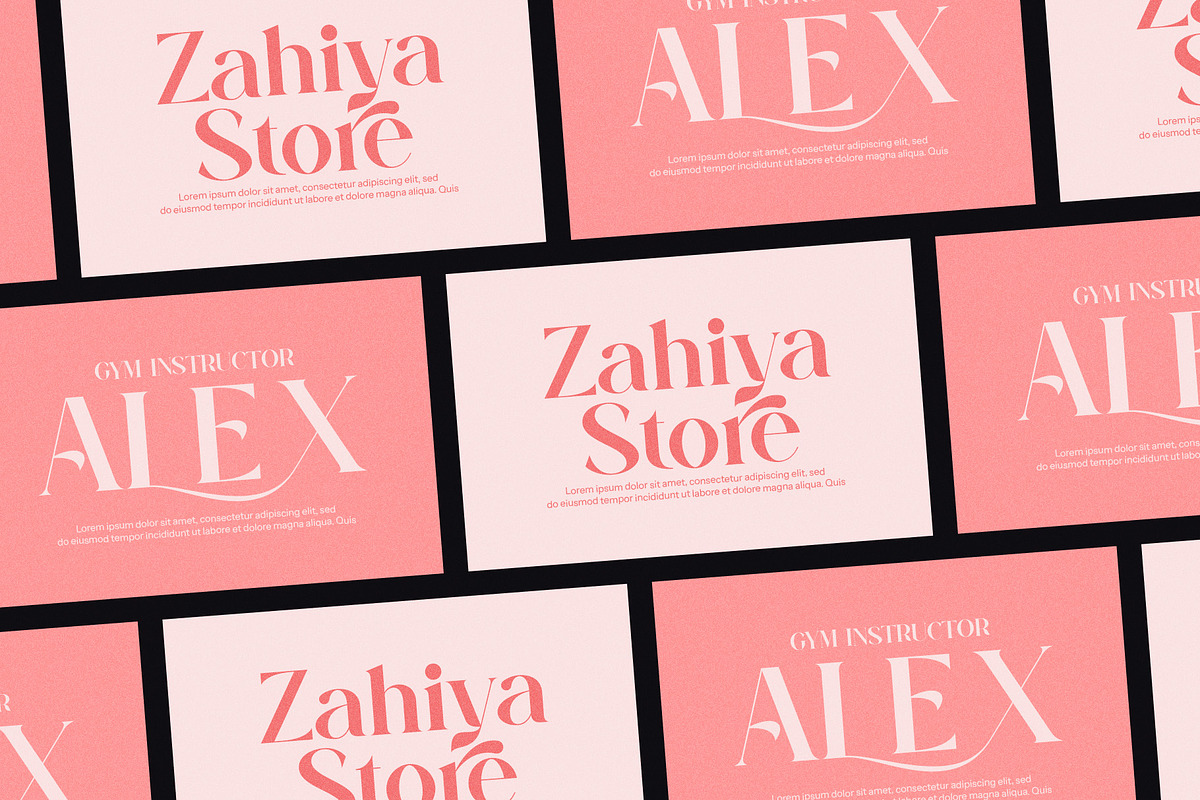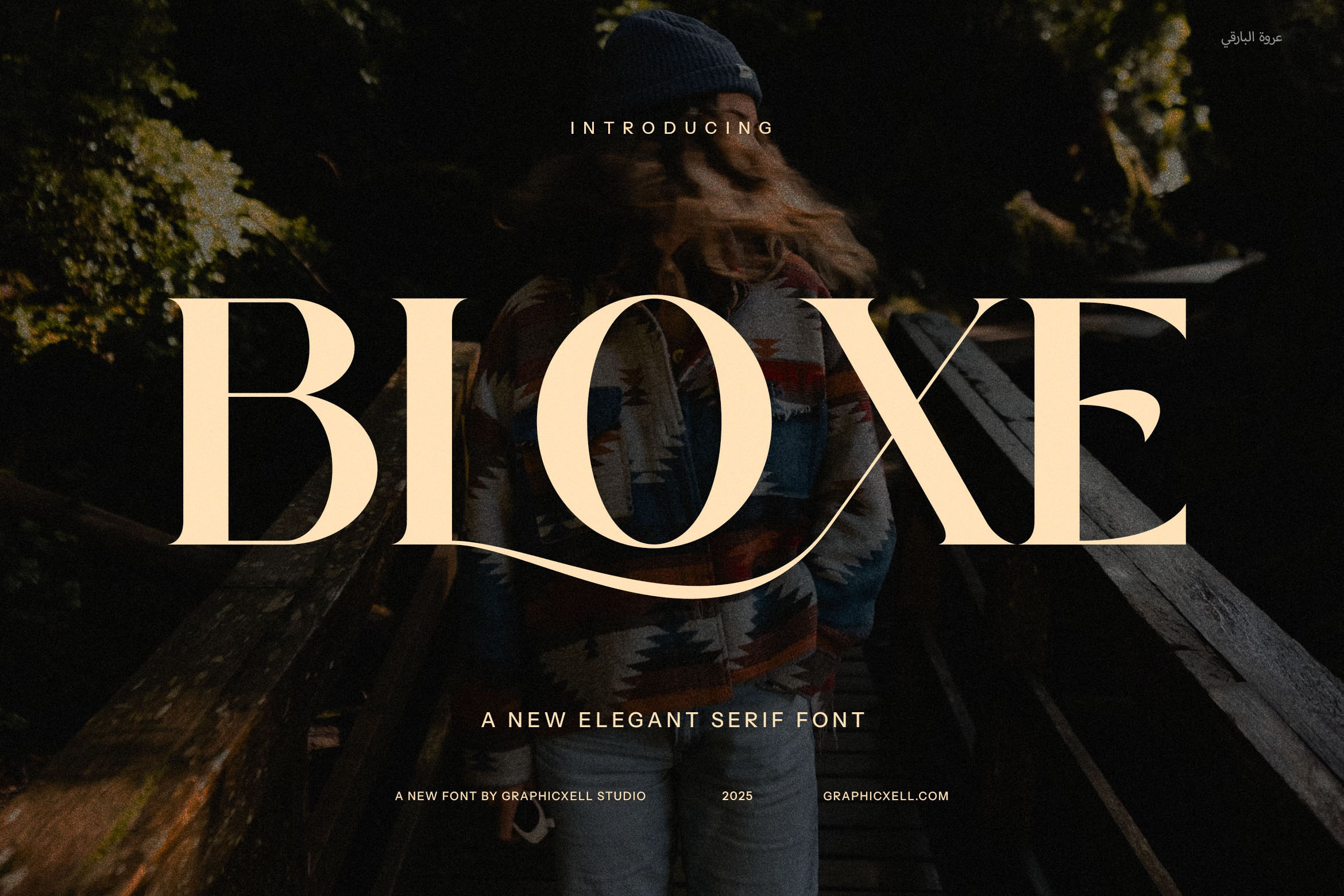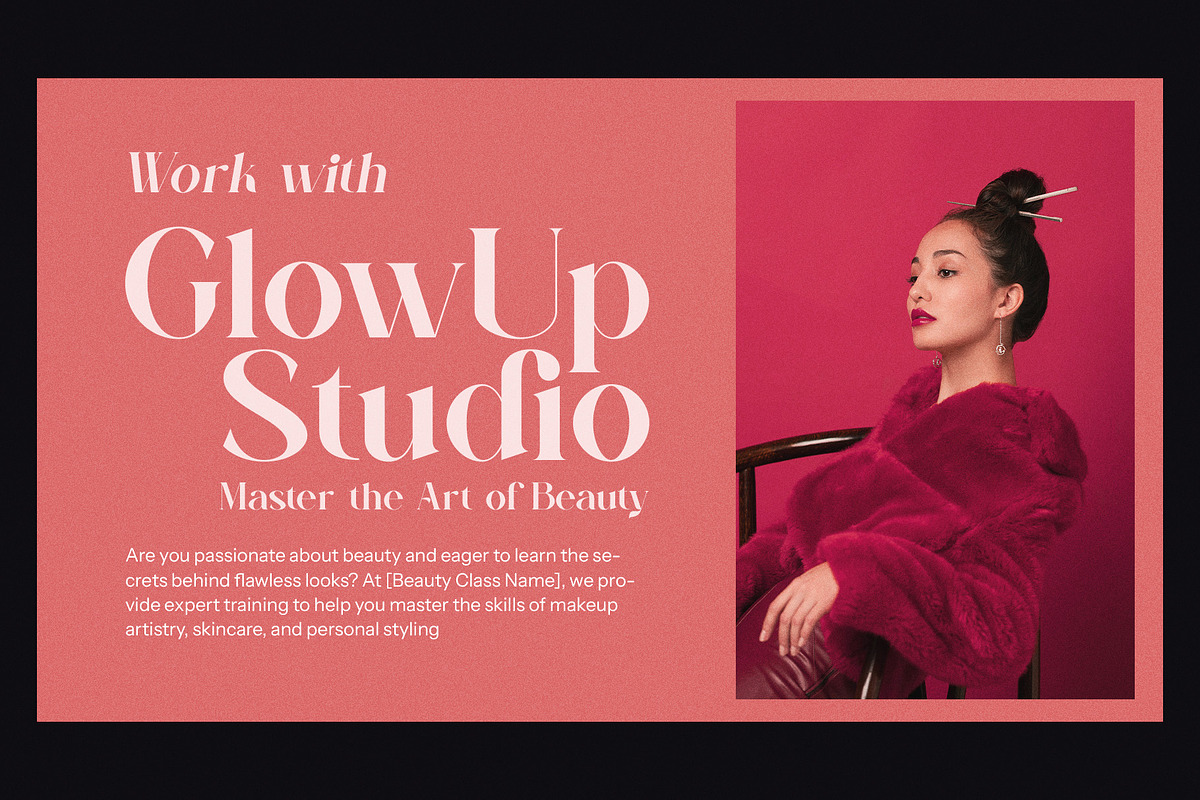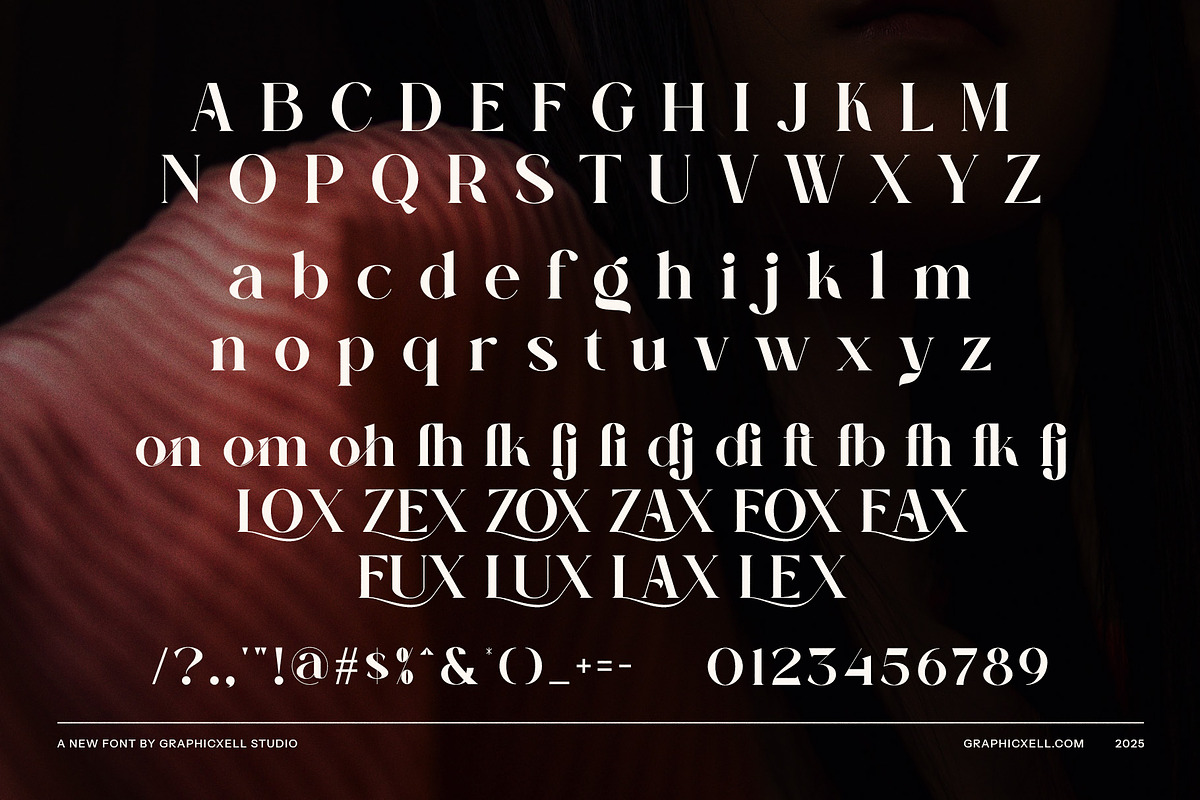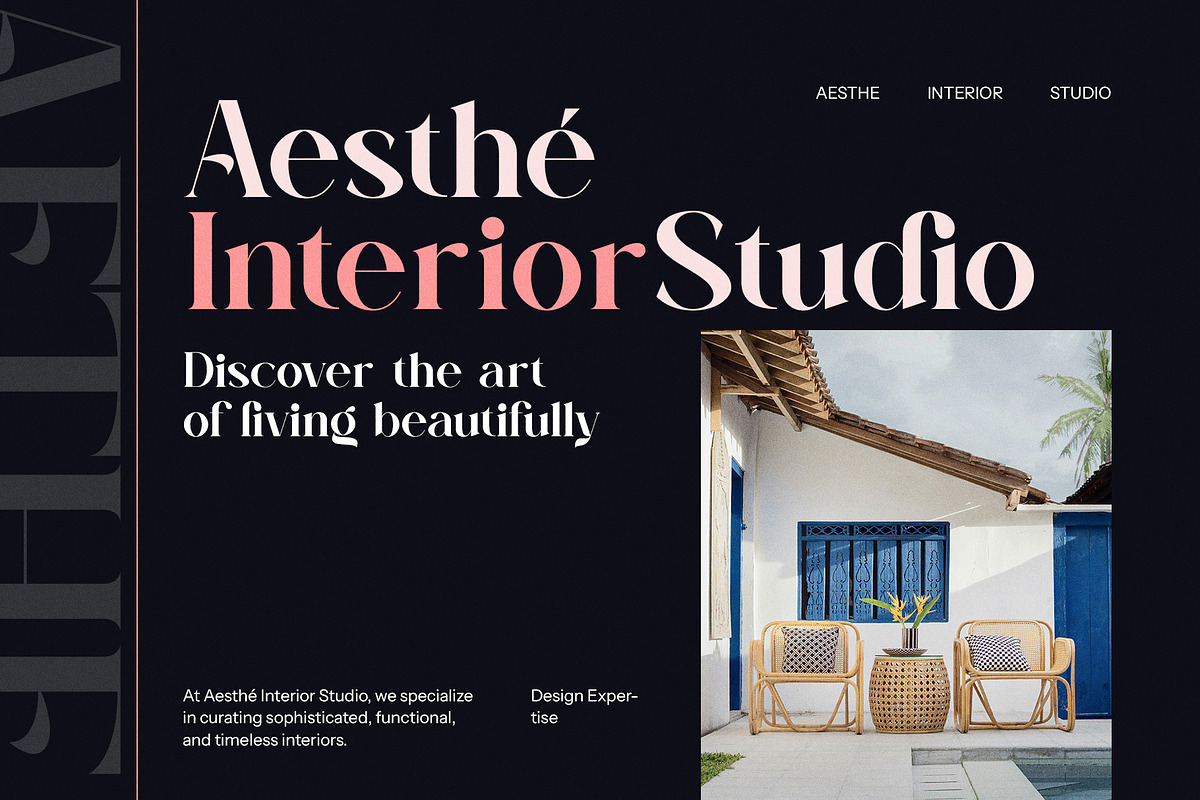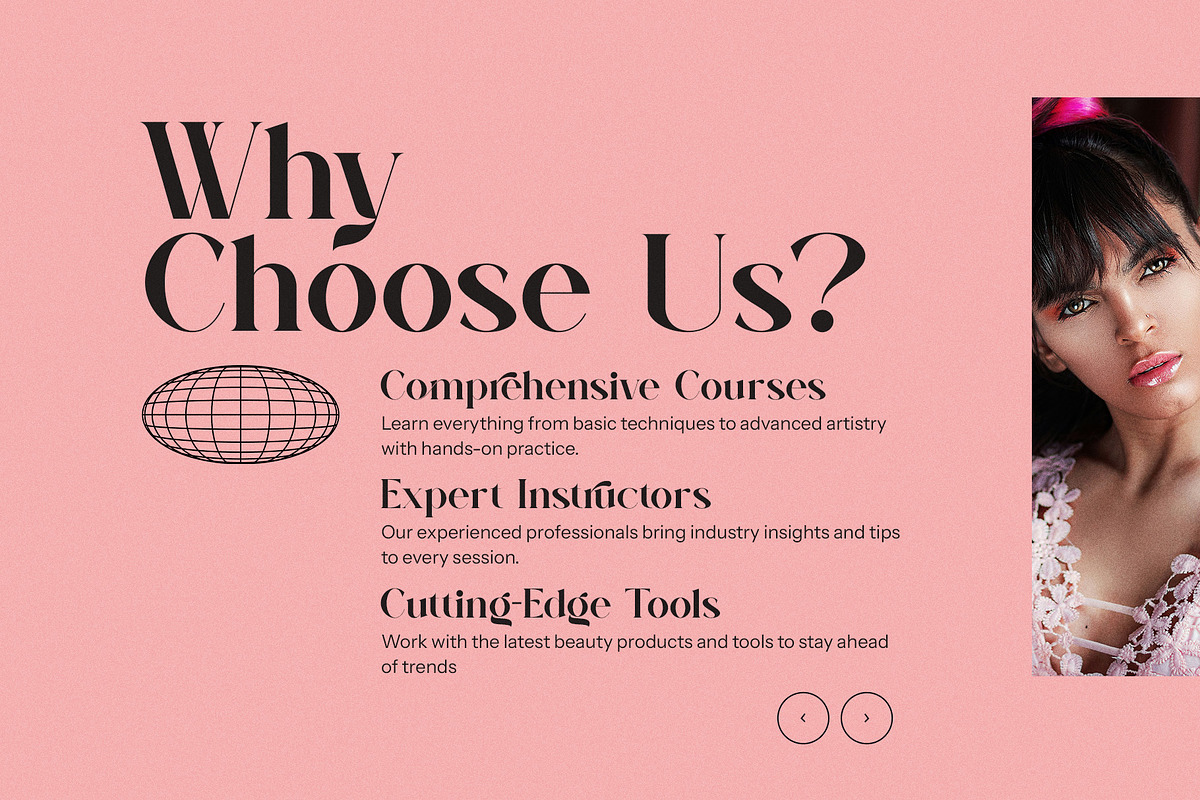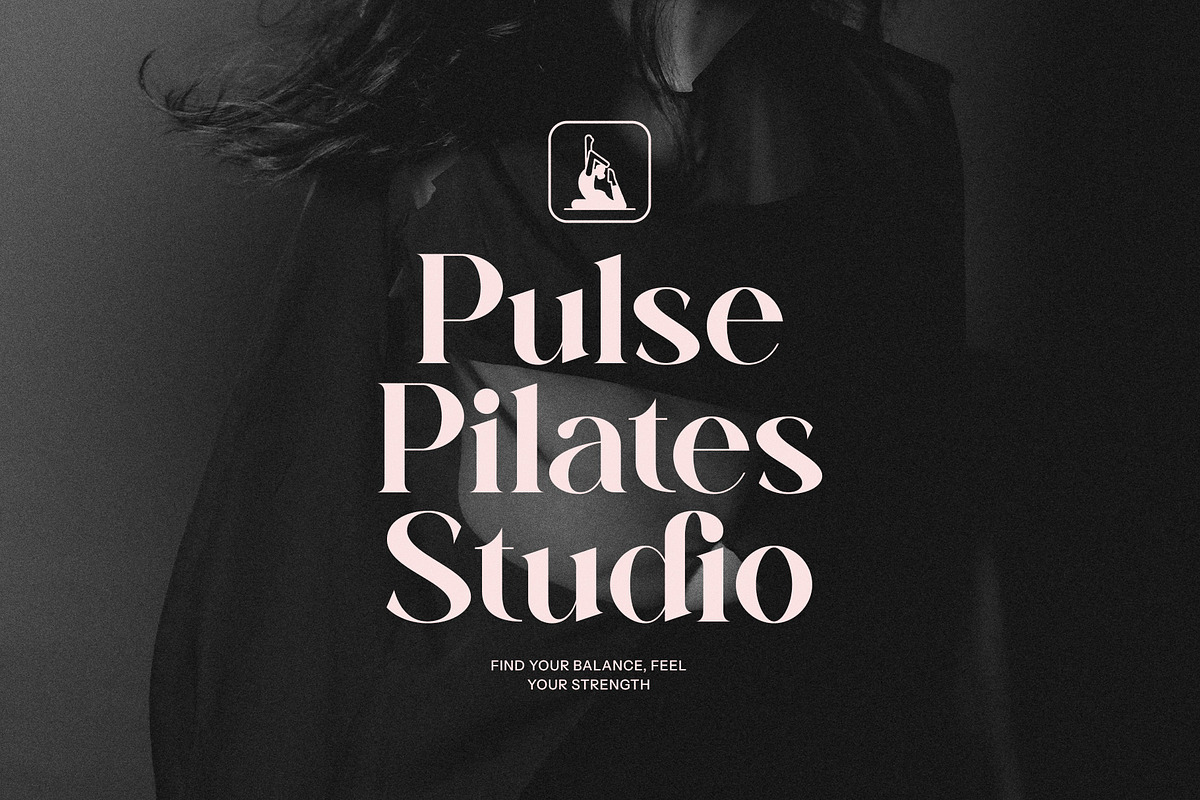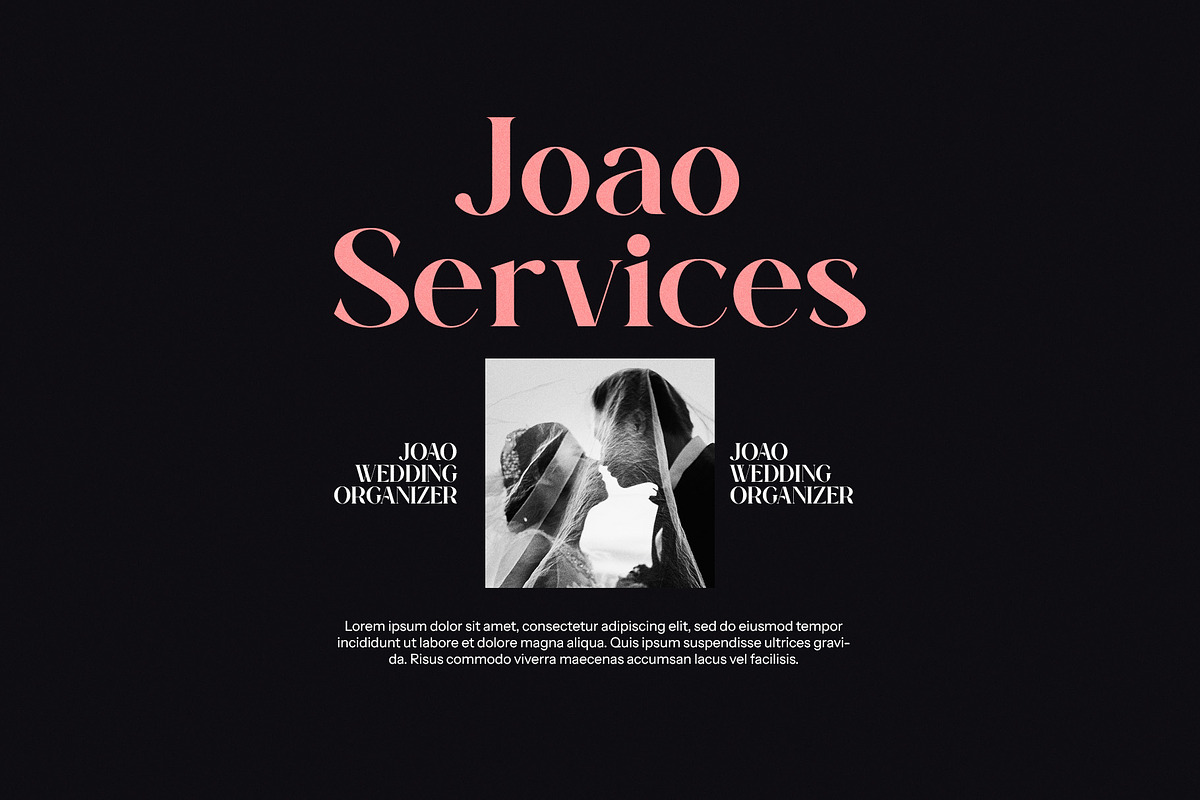
Bloxe Elegant Serif Font
Bloxe Elegant Serif Font is a modern typeface that redefines sophistication with its clean lines, refined serifs, and artistic details. Designed to make an impression, this font blends timeless elegance with contemporary flair, offering a perfect balance of functionality and style. Its unique ligatures and alternates provide endless creative possibilities, allowing for customized designs that truly captivate.
Whether you’re creating a logo for a luxury brand, designing product packaging, or curating an eye-catching website, Bloxe is your go-to choice. The font’s graceful curves and sharp edges evoke a sense of confidence and professionalism, making it an excellent fit for high-end branding, boutique designs, and editorial projects like magazines or brochures.
Bloxe also shines in digital layouts, offering exceptional readability without sacrificing its chic appeal. From advertisements and social media graphics to restaurant menus and fashion labels, this typeface elevates every design with its unmistakable charm. The sophisticated alternates and versatile ligatures make it easy to tailor the font to suit the tone of your project, whether modern minimalist or classic elegance.
This elegant serif font adds a layer of luxury to every application, making it a must-have for designers who value both creativity and functionality. Bloxe isn’t just a typeface—it’s a statement of style, perfectly suited for enhancing logos, branding projects, and beyond. Elevate your designs with Bloxe Elegant Serif Font and let its timeless beauty speak for itself.